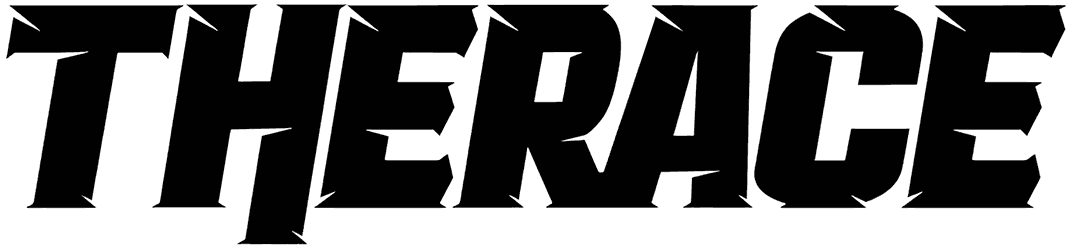
Therace Font
If creating a sense of excitement, innovation, and modernity in your content is very important for you, using a techno font such as Therace can help you to achieve your desires. Its innovative design makes up for its lack of lowercase letters and several numbers. This racing font can be ideal for designing posters, book covers, logos, applications, and user interfaces of websites.
Therace Display Font is a simple, bold and bold display font. Use it for each of your casual designs and report how it makes it stand out! for ligature use, use lowercase